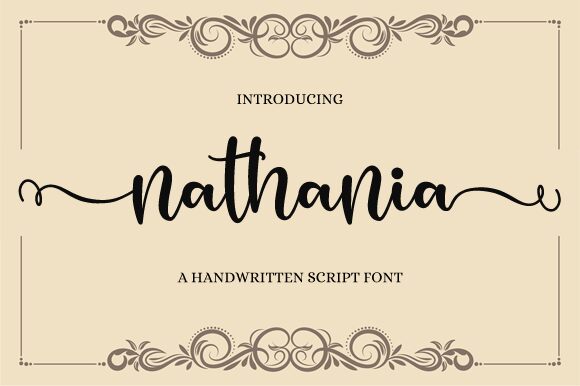
Nathania
Nathania emerges as a fresh, handwritten font meticulously crafted by Nirmala Creative. With its fluid curves and natural stroke variation, Nathania embodies the artistry of traditional penmanship infused with a modern twist. The font's aesthetic appeal lies in its ability to convey warmth and personality, making it an excellent choice for branding, wedding invitations, and personalized stationery.
Its charming style exudes an informal yet elegant vibe, ensuring that Nathania can enhance various creative projects with its approachable and distinctive character. Whether you're designing a book cover that demands intimacy or crafting social media graphics that require a touch of whimsy, Nathania's versatile appeal is poised to meet the needs of designers seeking to make a memorable impression.